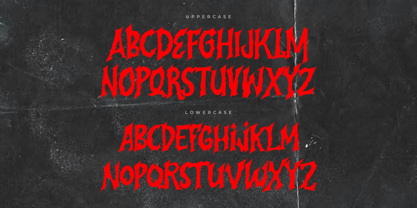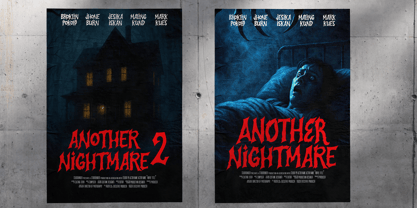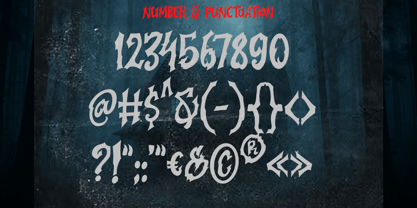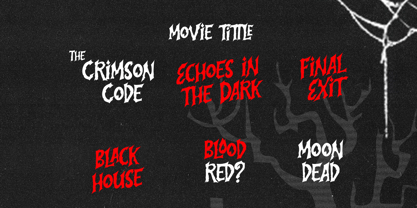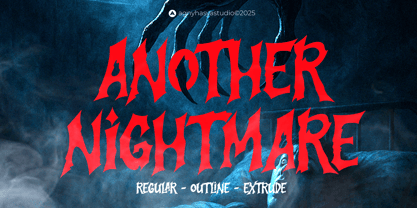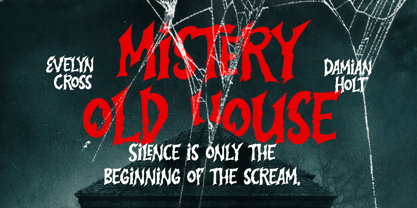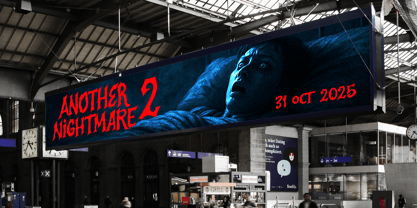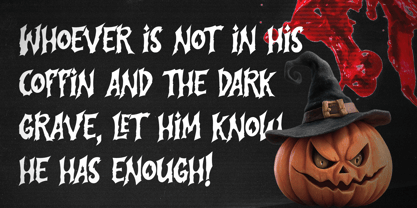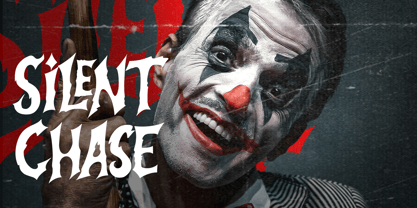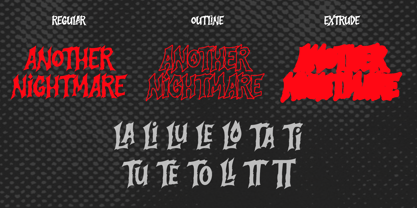
Make Every Title Feel Like Something Is Watching
Meet Another Nightmare, a cinematic gothic horror display family created for movie titles, horror games, supernatural campaigns, music artwork, book covers, apparel, posters, and dark visual identities.
With jagged gothic structures, pointed terminals, irregular cuts, dramatic counters, and an unsettling silhouette, Another Nightmare gives typography a sharp, theatrical, and unmistakably dark presence.
Three Styles, One Distinctive Horror System
Another Nightmare includes 3 coordinated styles: Regular, Outline, and Extrude.
Use Regular for bold hero titles, posters, logos, covers, and primary headlines. Add Outline for sharper contrast, layered lettering, and merchandise graphics. Use Extrude to introduce dimensional depth and stronger visual impact.
Combine all three styles to build layered horror typography while keeping one consistent visual identity.
Perfect For
• Horror movie titles and theatrical posters
• Thriller and supernatural campaigns
• Survival horror and dark fantasy games
• Haunted attractions and Halloween identities
• Gothic logos and dark brand systems
• Metal, rock, and underground music artwork
• Book covers and dark publishing
• Streetwear, apparel, and merchandise
• Posters, billboards, events, and social campaigns
• Packaging, thumbnails, and promotional artwork
Rooted in horror but versatile enough for year-round creative work, Another Nightmare moves naturally across gaming, music, fashion, publishing, entertainment, and dark contemporary branding.
Font Features
• 3 styles: Regular, Outline, and Extrude
• Uppercase and lowercase characters
• Numerals, punctuation, and symbols
• Standard and discretionary ligatures
• OpenType features
• Extended multilingual support
Build Titles That Haunt the Headline
Three Styles. One Nightmare. Built to Haunt the Headline.